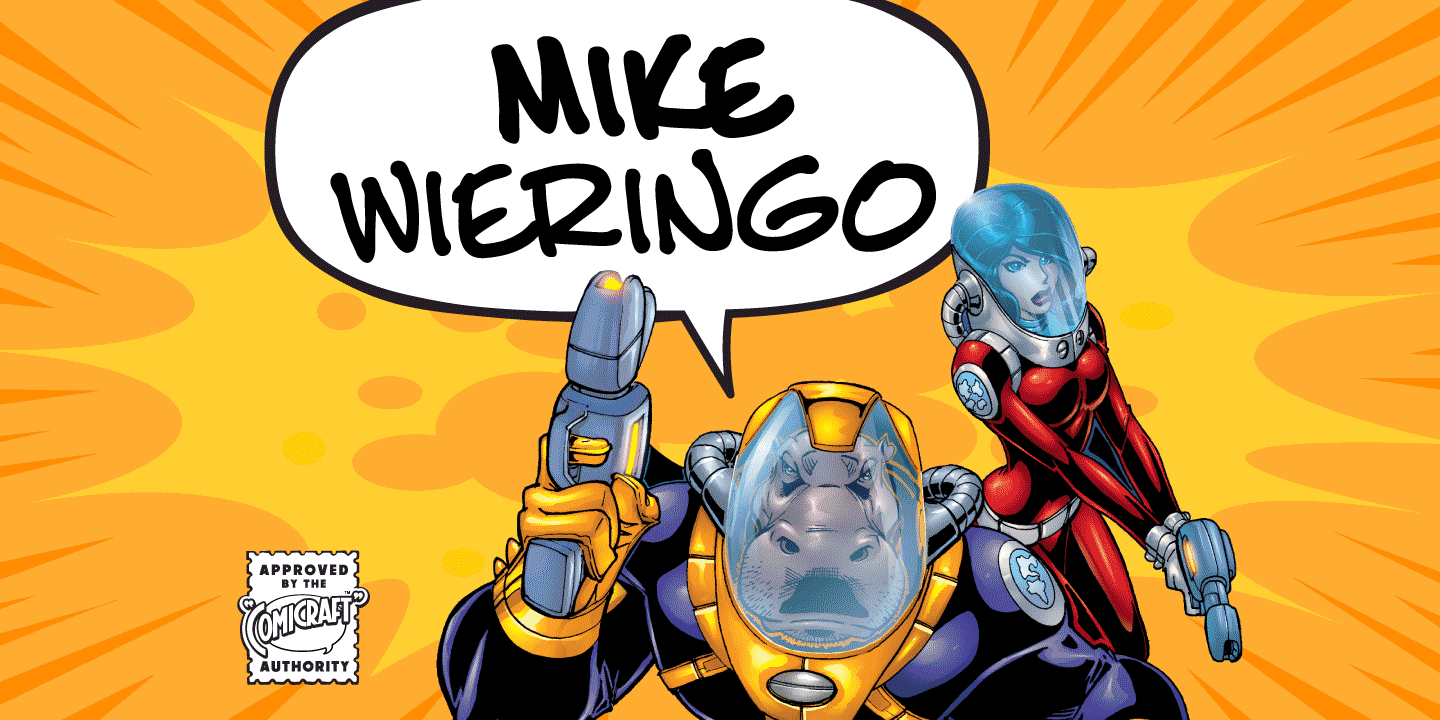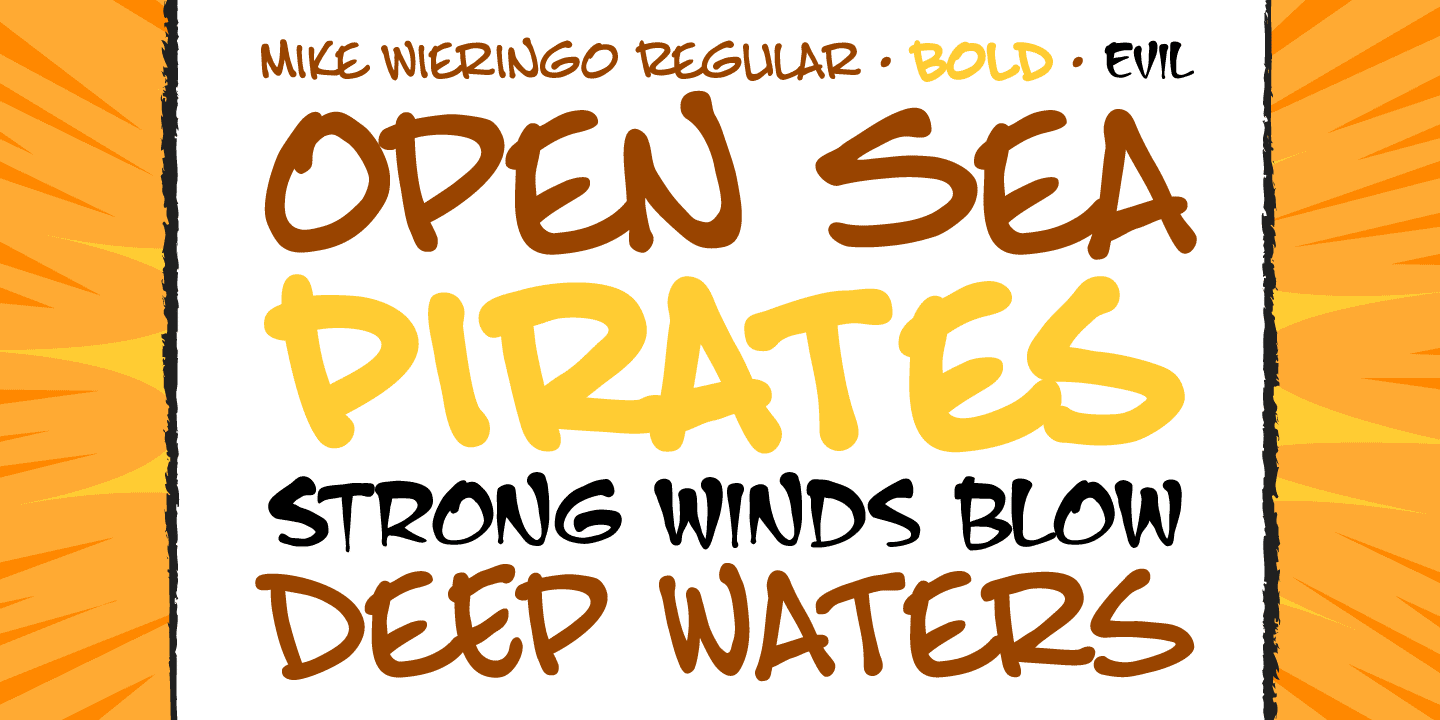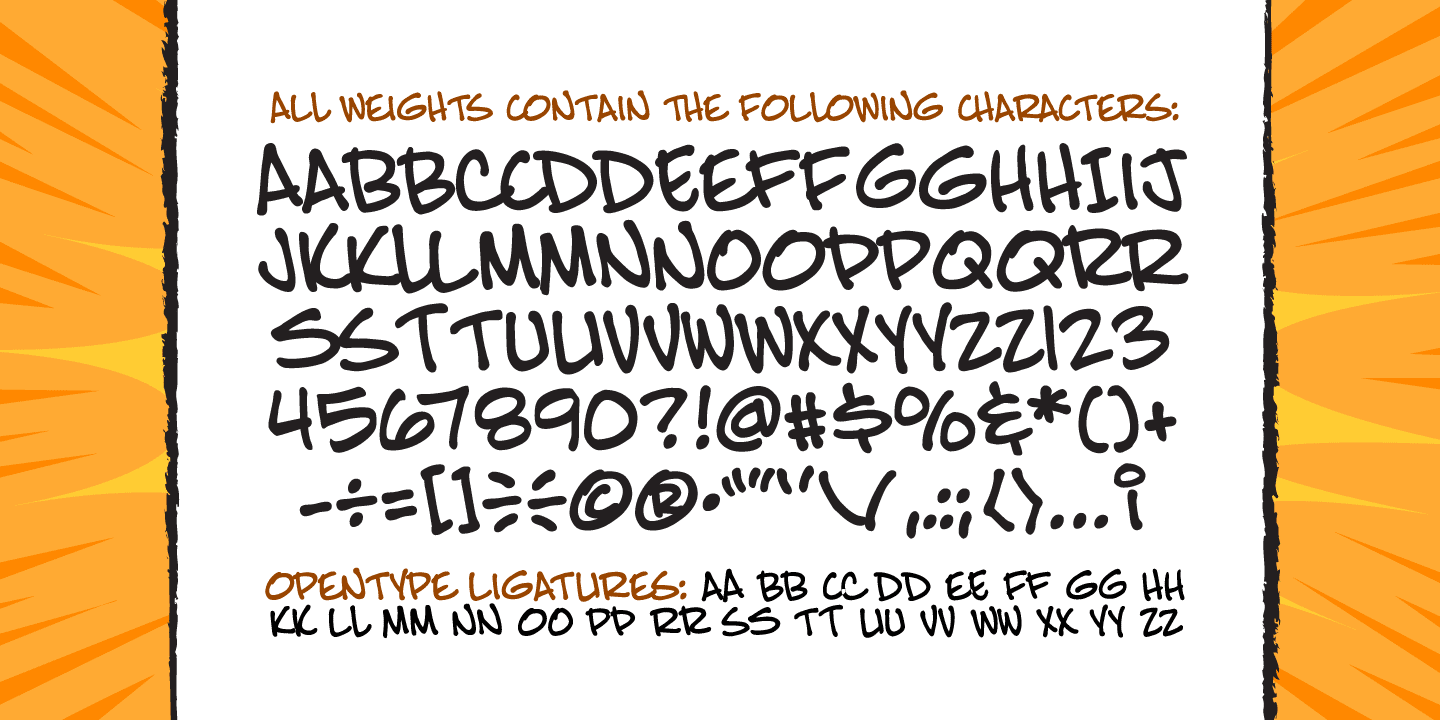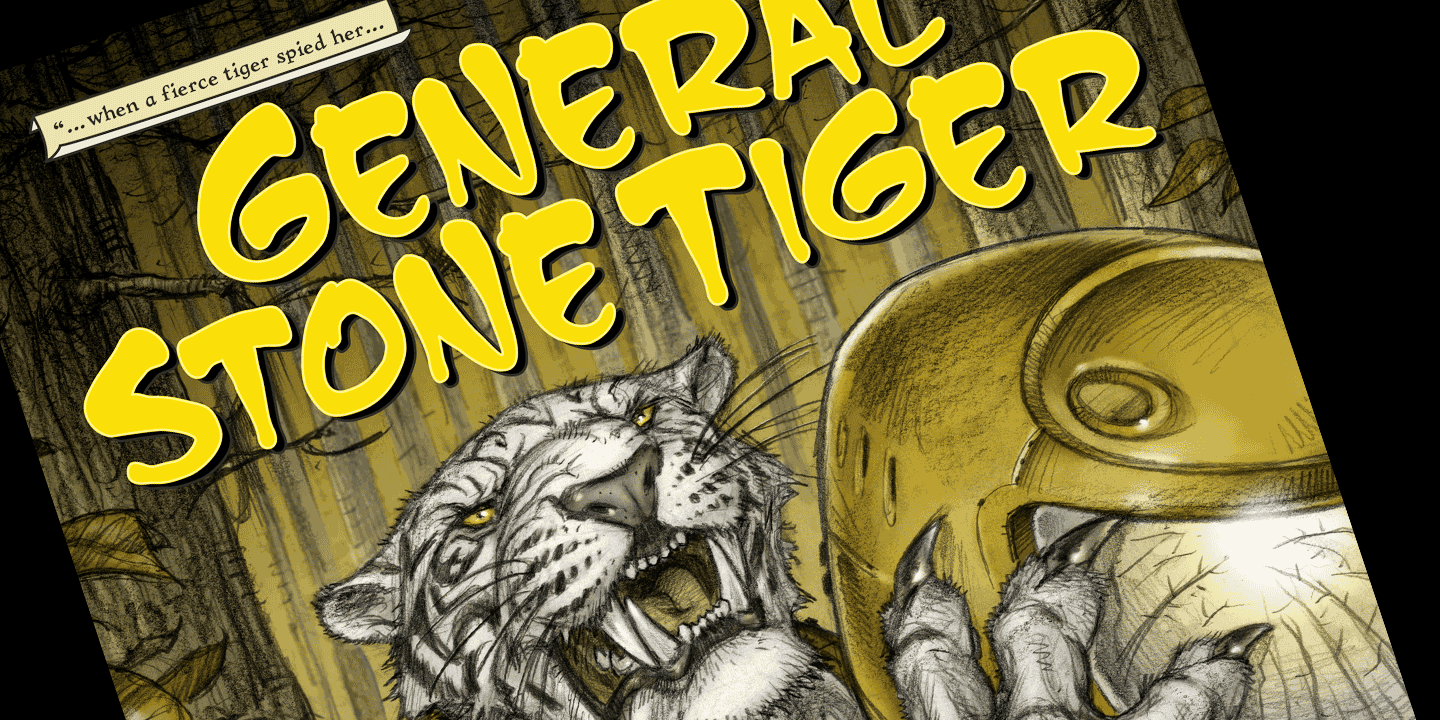
Mike Wieringo
Font Family by Comicraft Fonts
SPIDER-MAN! THE HULK! THE FANTASTIC FOUR! BATMAN! SUPERMAN! Superstar artist Mike Wieringo worked with the most well-known characters in comic books, and just a few short years ago Comicraft teamed up with Mike and writer Todd DeZago in the pages of their creator-owned comic book fantasy adventure series, TELLOS!
At Mike's request, we created a special Wieringo font which incorporated Mike's distinctive, slick-and-easy, backward-sloping letters, as well as a slightly heavier font -- carrying just a little more ink -- for the Shadow Jumper characters featured in the first TELLOS story arc. Now the Mike Wieringo font can be yours as it joins our ever growing library of Masters of Comic Book Art fonts.